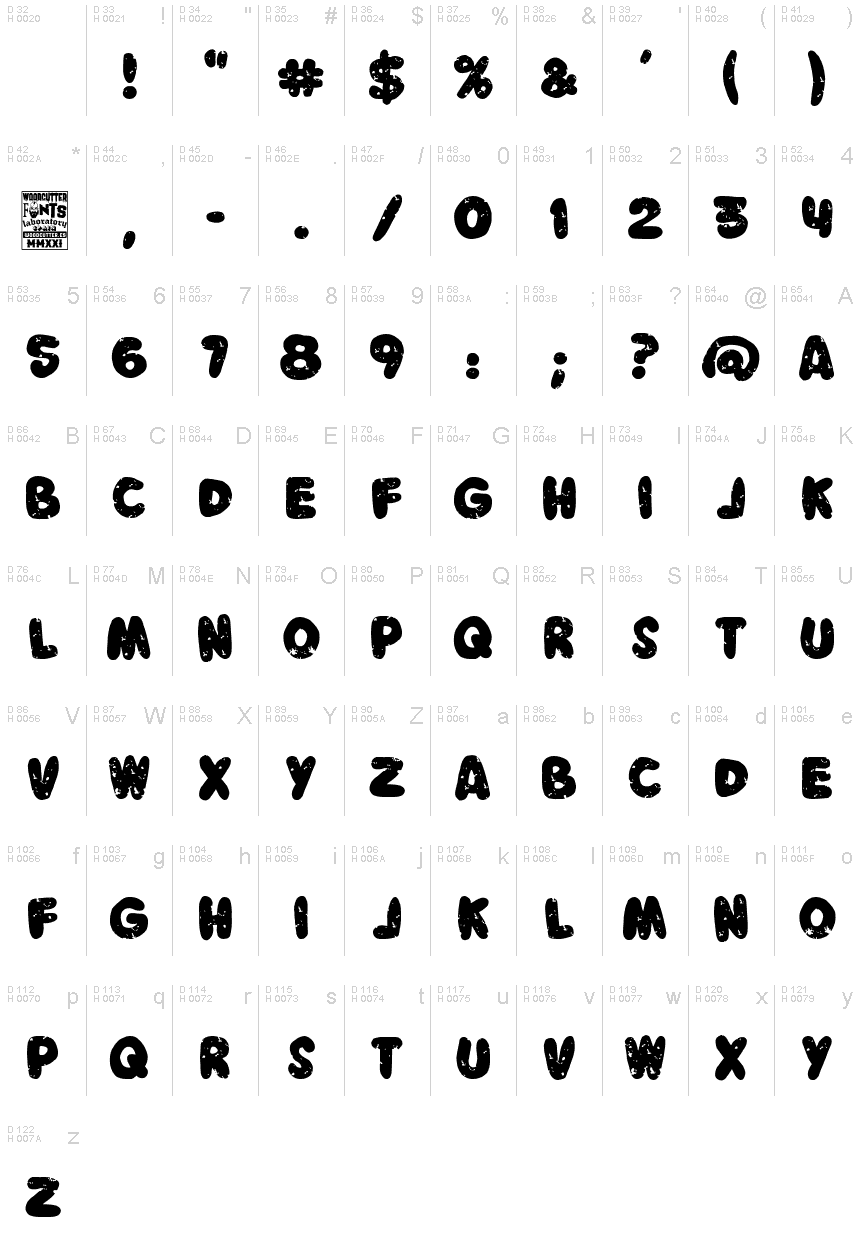
Survival Kids
The Survival Kids font by Woodcutter Manero is an eroded display font with bold weight. It's perfect for projects that require an edgy and unique look, such as posters, logos and album covers.